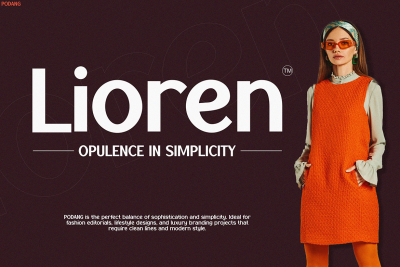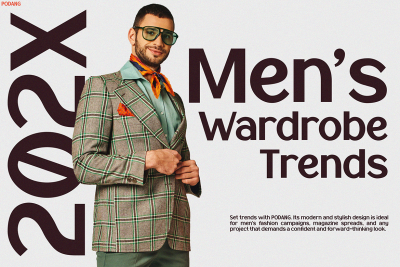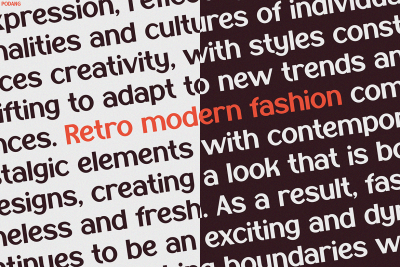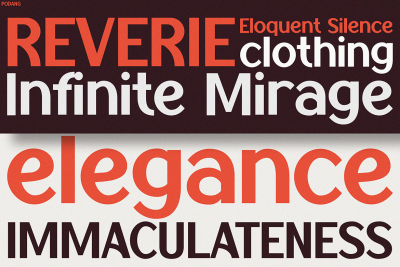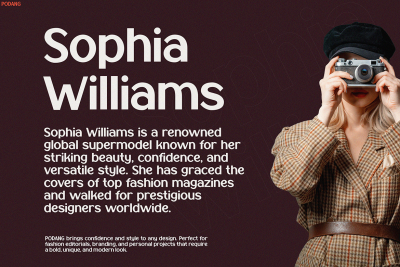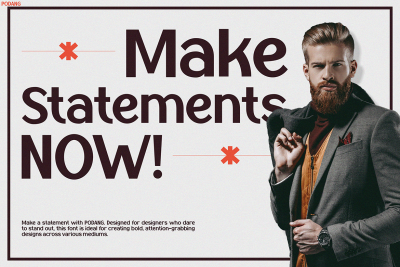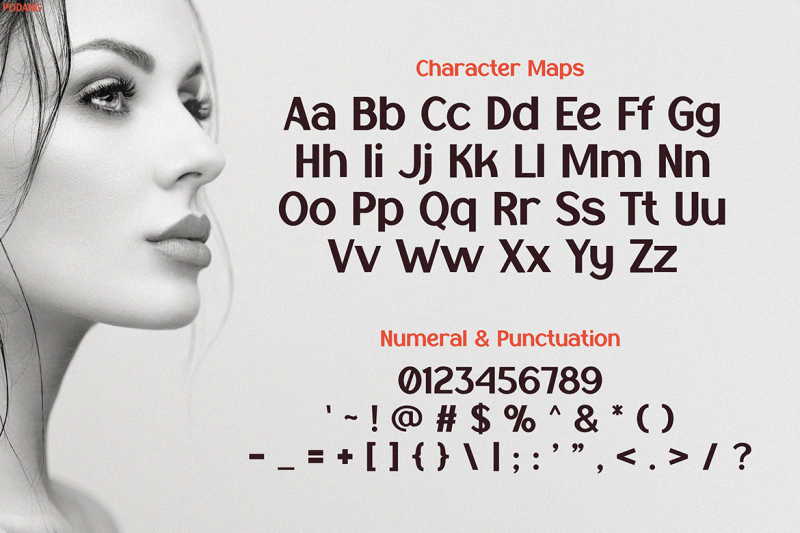
Retro Font PODANG brings boldness and charm to every design it touches. Not only does this typeface merge vintage aesthetics with modern style, but it also adds a confident flair that turns heads instantly. Each letter features clean curves, well-balanced proportions, and subtle quirks that breathe life into your layouts. Because of its eye-catching structure, PODANG becomes an ideal choice for creating bold statements that demand attention. Whether you’re working on a digital campaign or a print layout, this font delivers impact every time.
What makes PODANG truly stand out is its ability to mix nostalgia with contemporary design needs. While it draws inspiration from retro visuals, its sharp execution ensures it looks fresh and relevant in any setting. Moreover, the fontโs consistent weight and smooth flow make your compositions look professional and cohesive. You can use it confidently in titles, headlines, packaging, and branding materials. Thanks to its readability and style, it adapts well to both minimal and expressive designs.
Retro Font PODANG Perfect For?
Retro Font PODANG is perfect for creatives across various industries. For instance, graphic designers can use it to develop bold branding assets, while fashion marketers can apply it to eye-catching campaigns. Furthermore, content creators and bloggers will love how this font boosts their visual identity with a touch of retro flair.
Even more, editorial designers working on magazine spreads or posters will find PODANG incredibly useful. Its personality suits forward-thinking projects, especially those related to fashion, lifestyle, or entertainment. Additionally, creative agencies and freelancers looking for a font that leaves a lasting impression will appreciate how PODANG elevates their design work effortlessly.